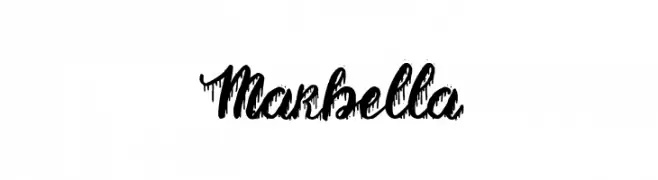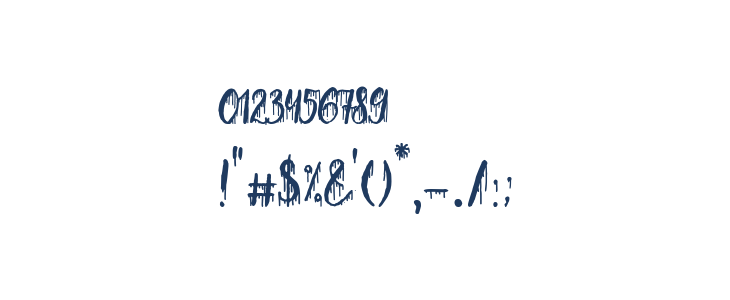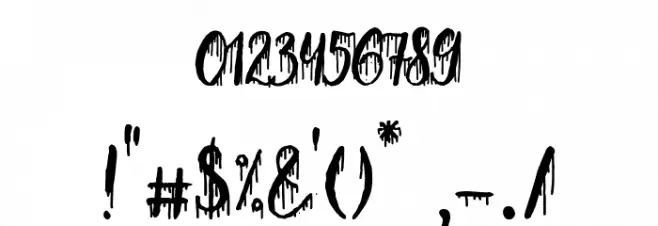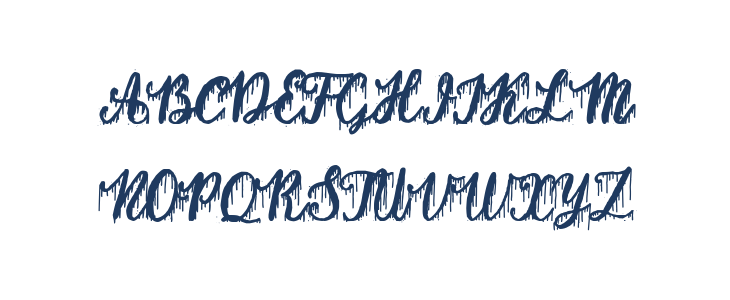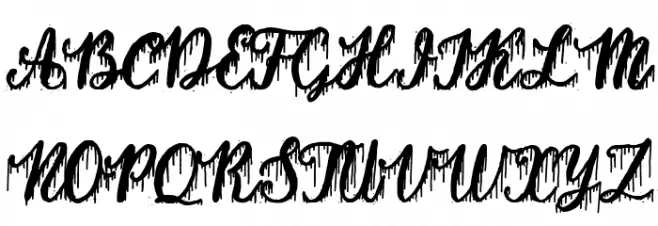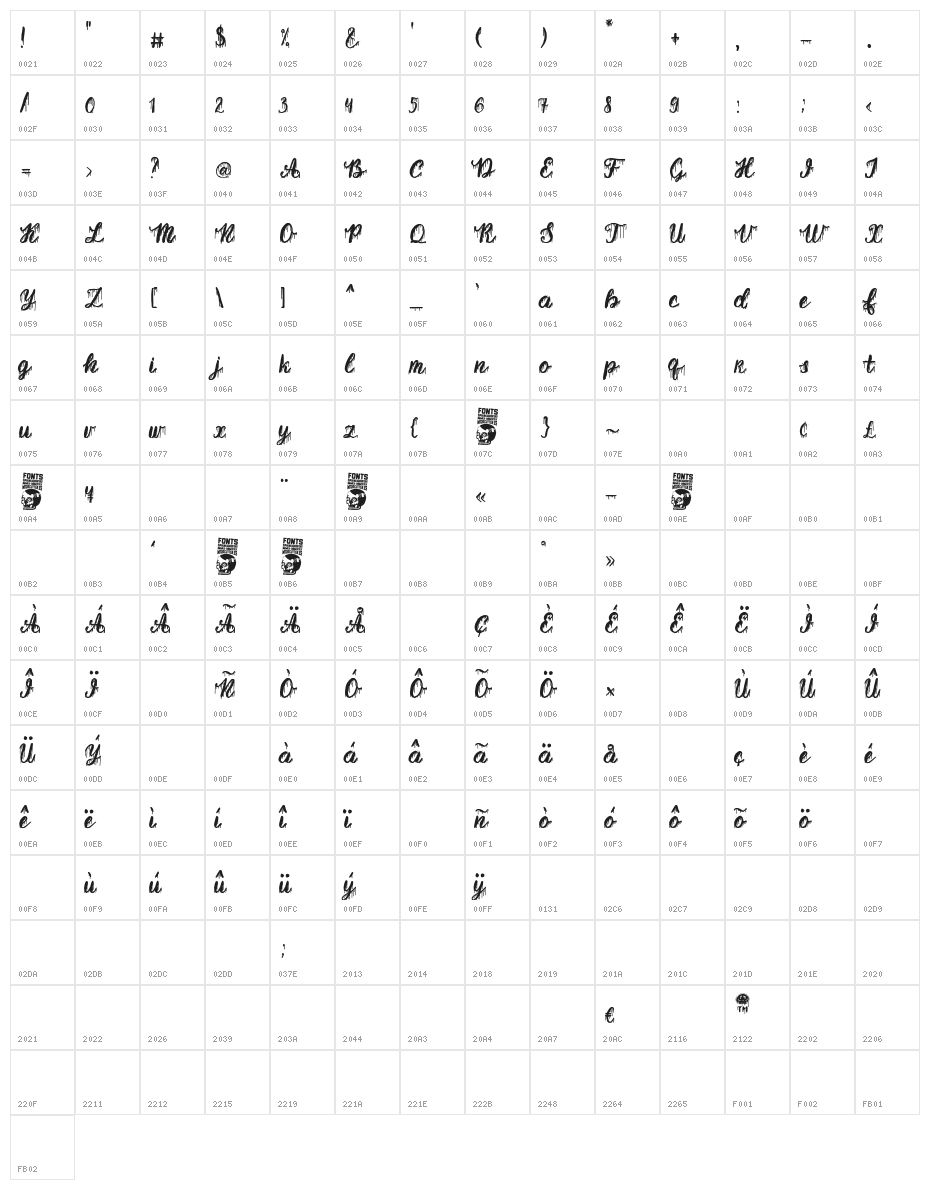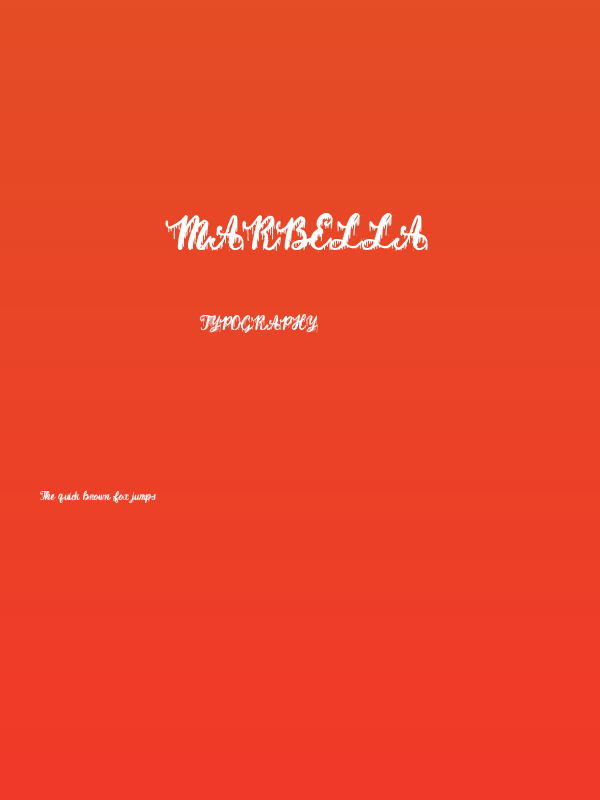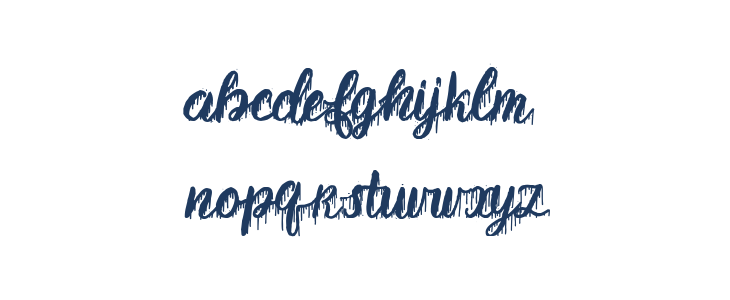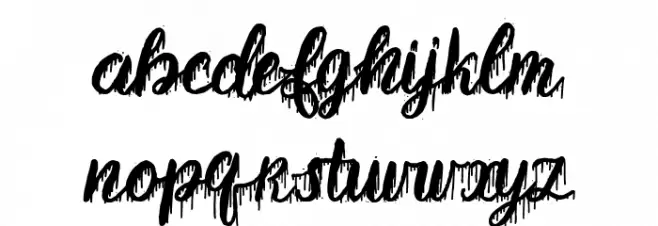
Marbella Font
Marbella Description
A dramatic, handwritten script font with heavy, dripping strokes that create a melting or horror-inspired effect. The characters are connected and fluid, with irregular edges and pronounced descenders that enhance the dripping appearance.
| Overall Style | Decorative, Horror, Grunge |
| Use Case | Headlines, Posters, Logos, Themed Graphics |
| Proposed Projects | Halloween posters, horror movie titles, spooky event invitations, themed party flyers, graphic tees. |